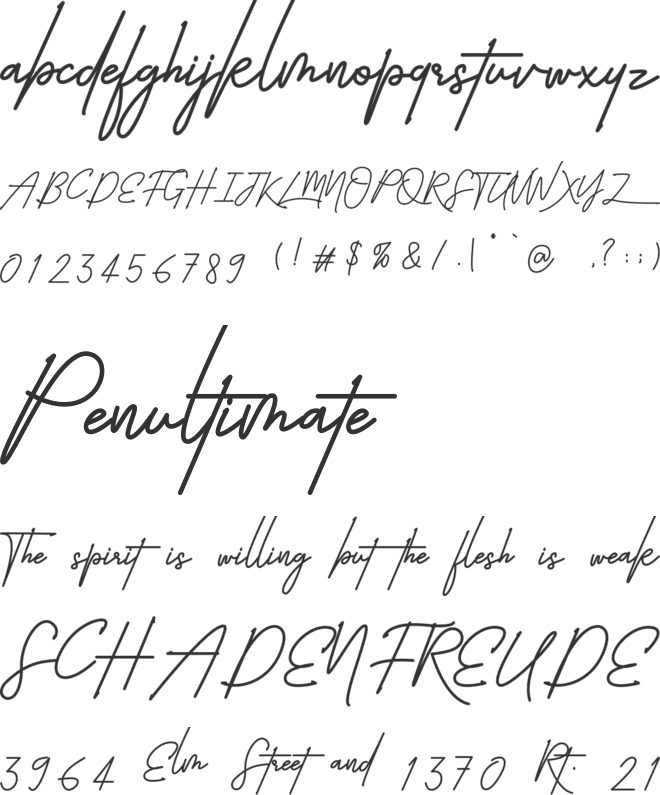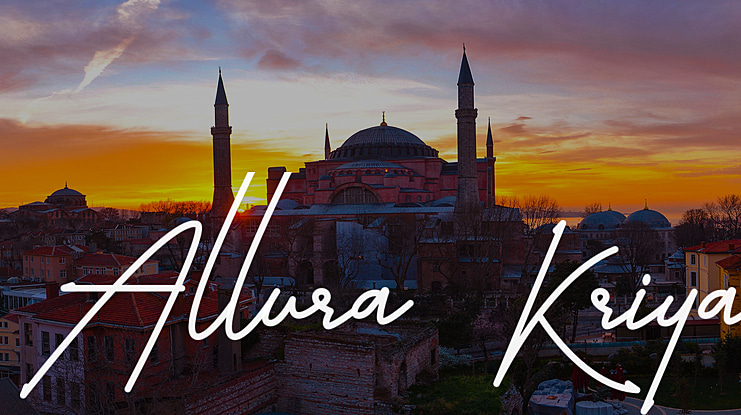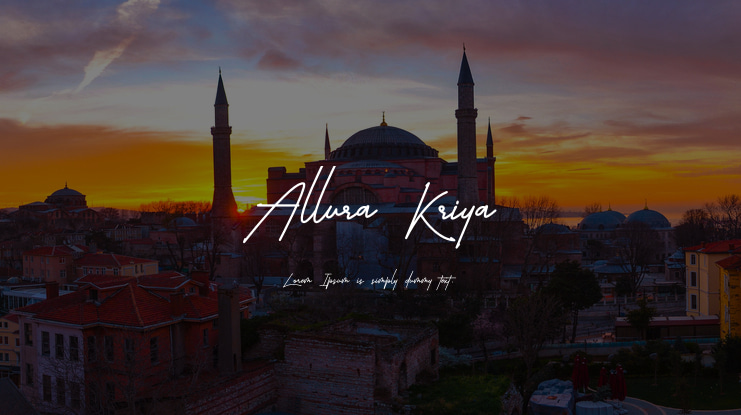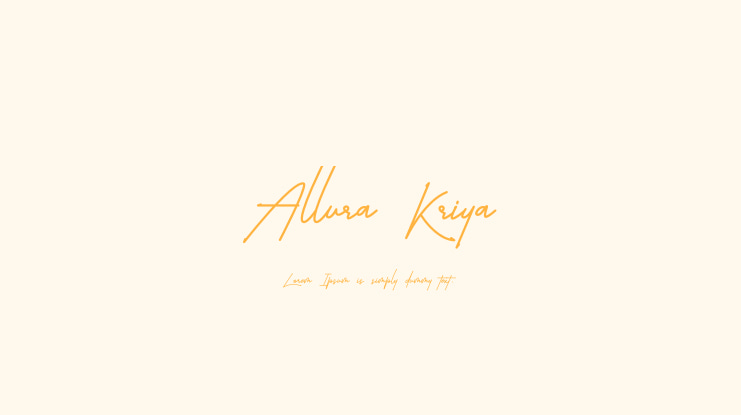
Allura Kriya Font
Allura Kriya is an elegant and dainty handwritten font that features sweet and delicate accents. This original look will appeal to a wide range of crafty ideas, from letterheads and titles to stationery or branding materials.